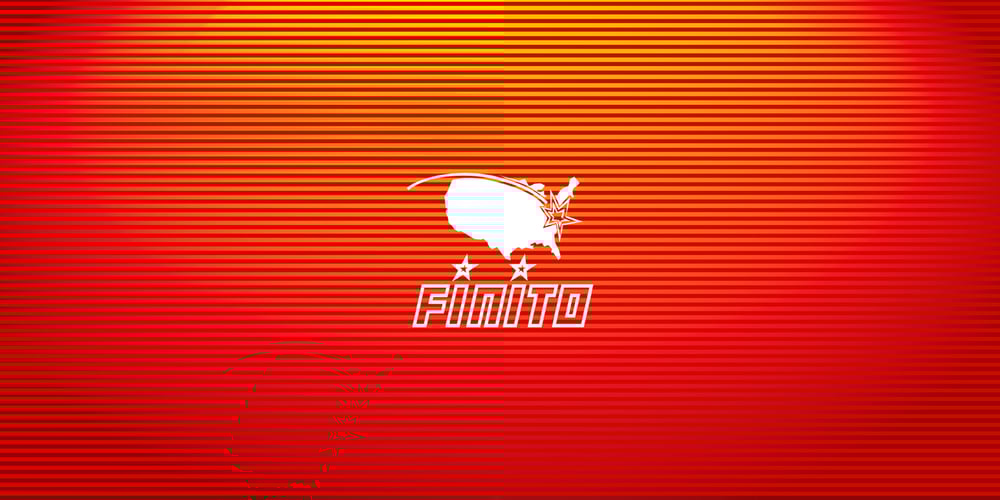
Apocalypso Font Family was designed by Jonathan Barnbrook and published by Barnbrook Fonts. Apocalypso contains 2 styles and family package options. Apocalypso is a pictogram font for the end of the world. The name Apocalypso is a portmanteau of the words apocalypse (end of the world) and calypso (joyful improvised music), with a meaning analogous to the idiom ‘fiddling while Rome burns’. The Apocalypso family is more of an art project than a practical font and contains a series of crosses and pictograms. The crosses add decorative detailing to typographic layouts, whilst the pictograms can be deployed to express the forthcoming apocalypse. Apocalypso was originally published in 1997, a few years before the turn of the millennium. It is both a document of the ideas of the time and a scarily prophetic vision of a possible world that has now largely come to pass.